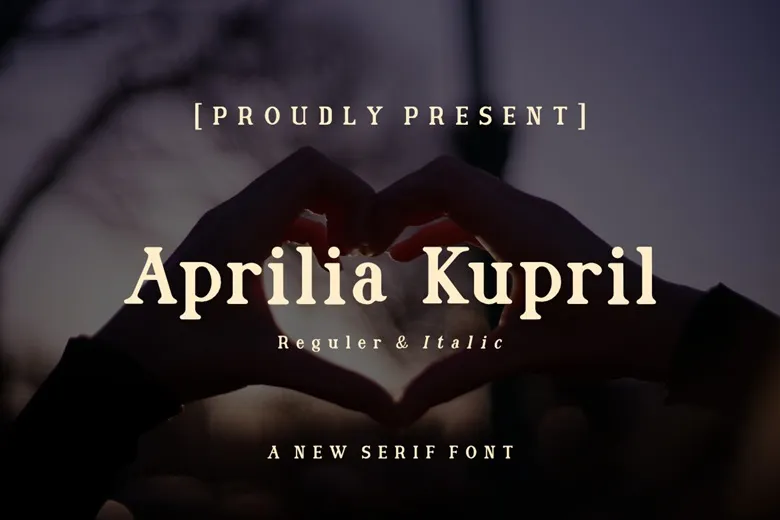
Aprilia Kupril Font
April Kupril is modern serif typography font. This font can be used on flyers, quotes, posters, banners, packaging, merchandise, logotypes and much more because this font has been blended with a high premium quality level.